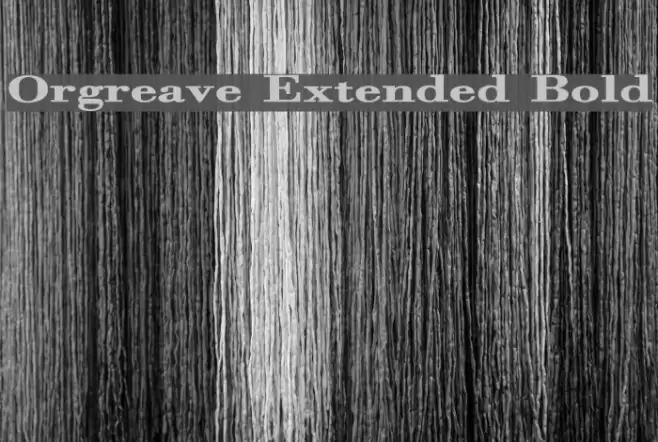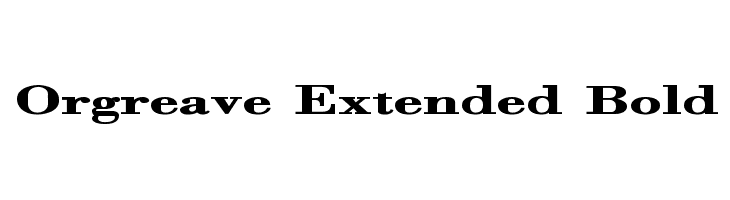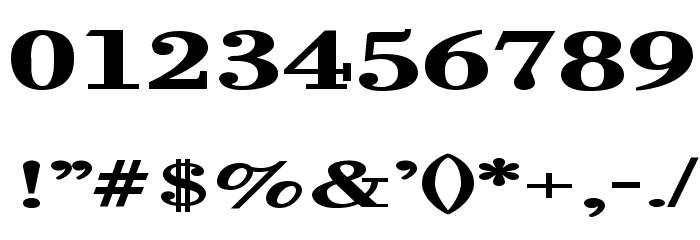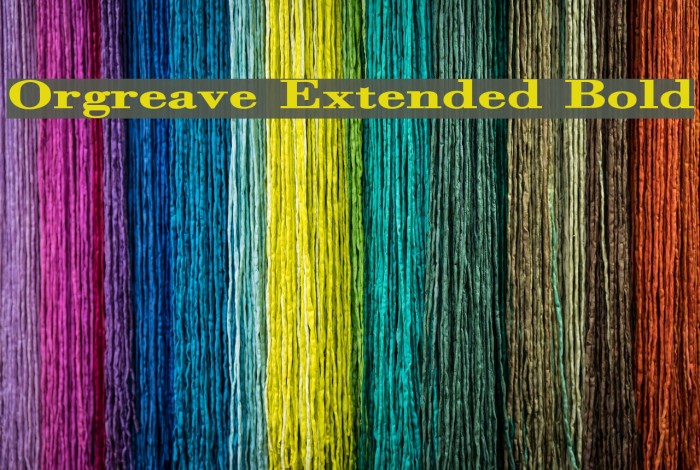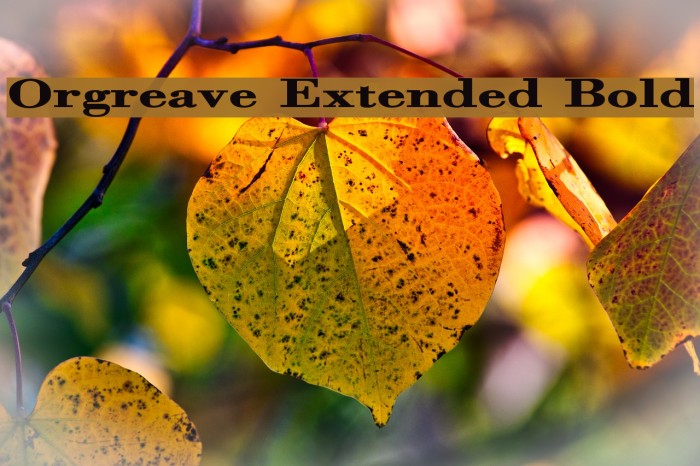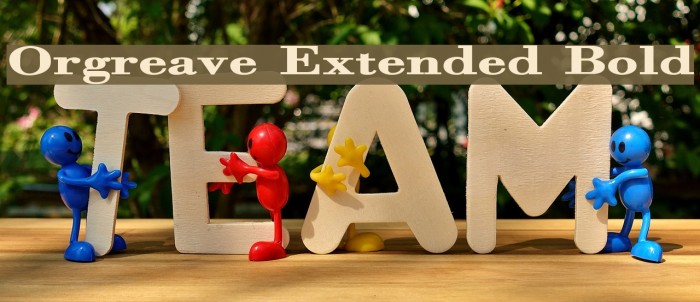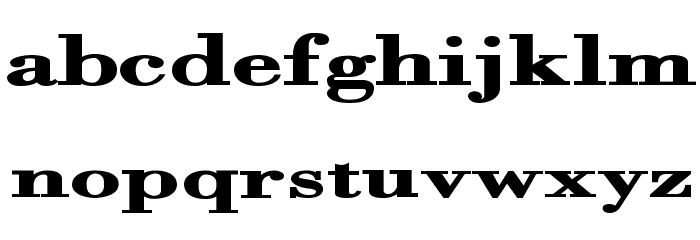
Orgreave Extended Bold Font
Orgreave Extended Bold Description
This font exhibits a bold and extended style with strong, thick strokes that convey a sense of authority and confidence. The serif design adds a classic touch, making it suitable for both modern and traditional applications. The uppercase letters are particularly striking, with a commanding presence that draws attention. The lowercase letters maintain a consistent weight, ensuring readability while preserving the bold aesthetic. Numerals are clear and robust, ideal for impactful displays. Special characters are well-integrated, maintaining the overall bold and extended theme.
A bold, extended serif font with a strong, authoritative presence from Uncategorized fonts.
- Proposed Projects: Ideal for headlines, posters, branding, and any project requiring a bold, impactful typeface.
- Width: Expanded
- Overall Style: Classic